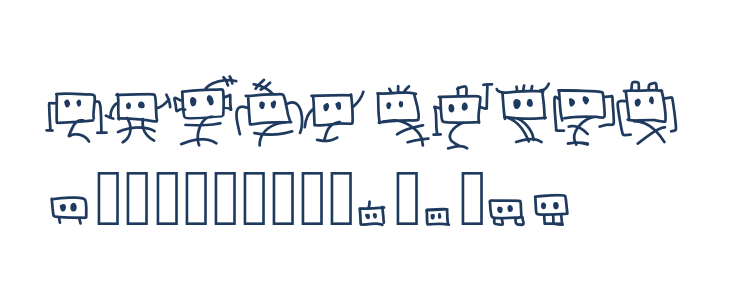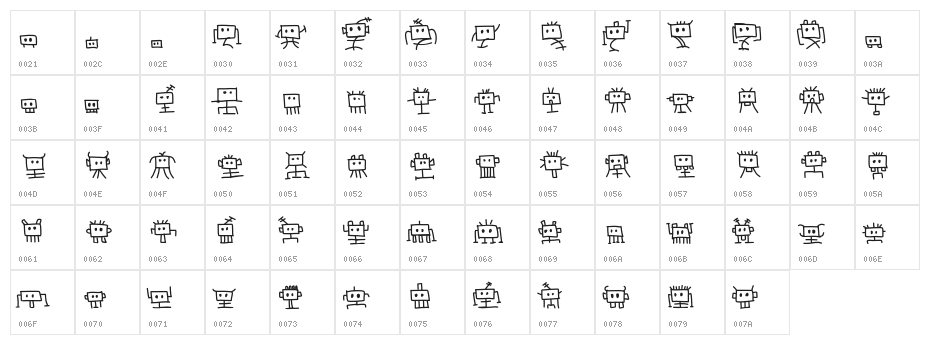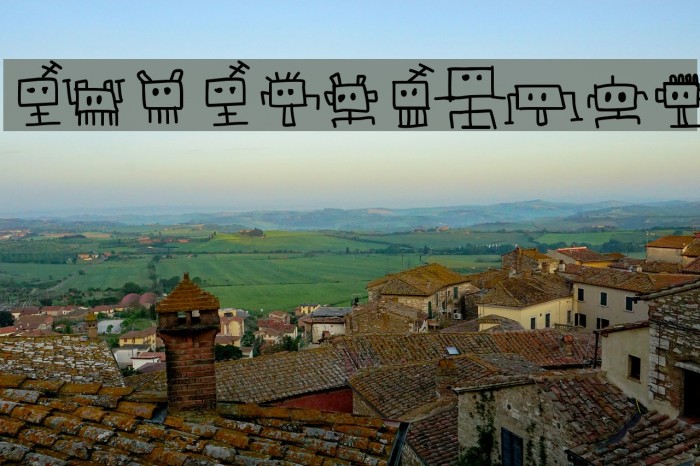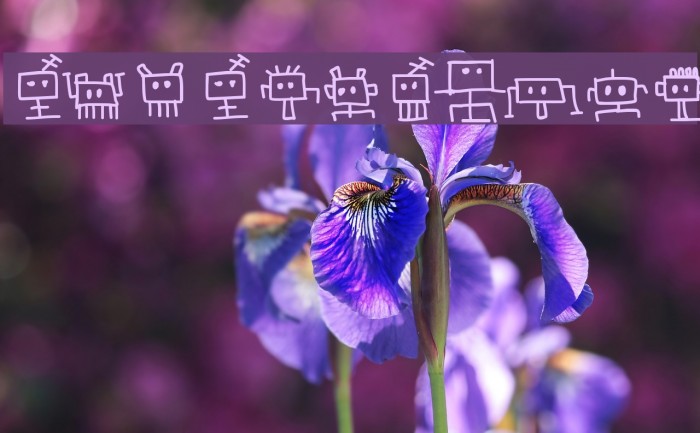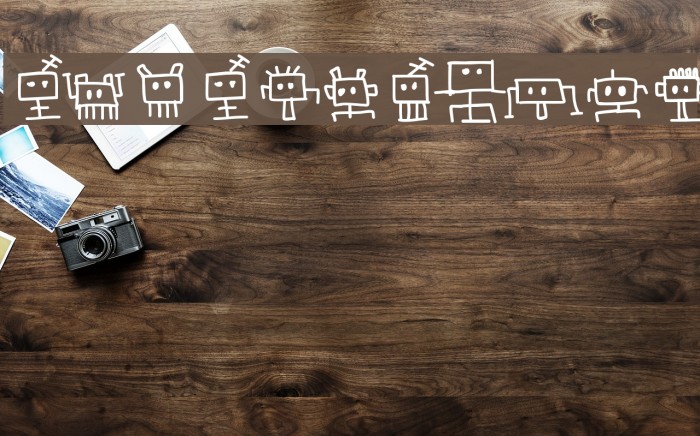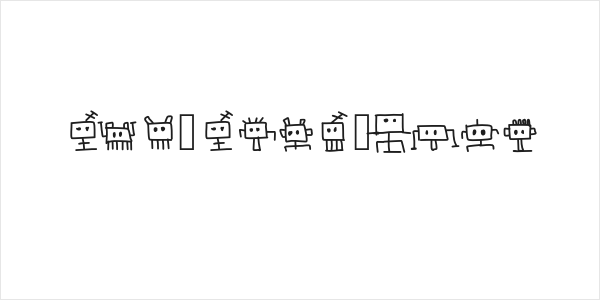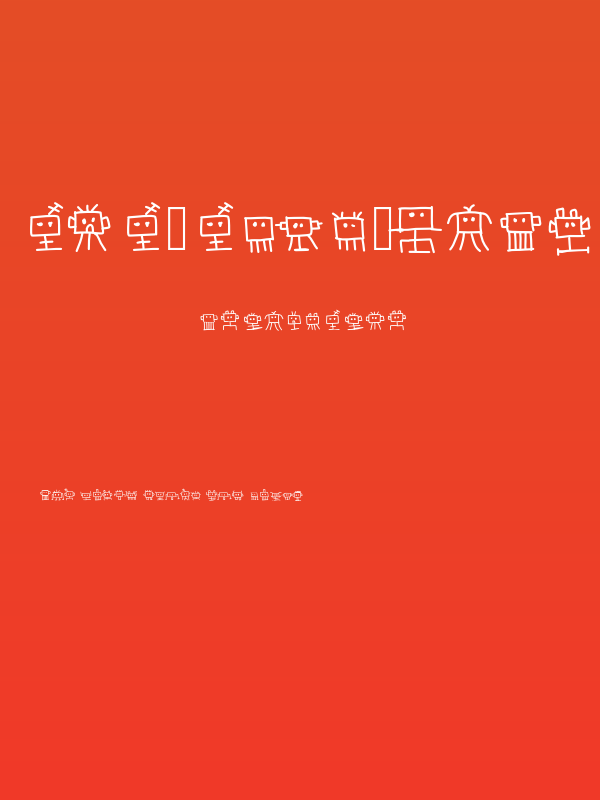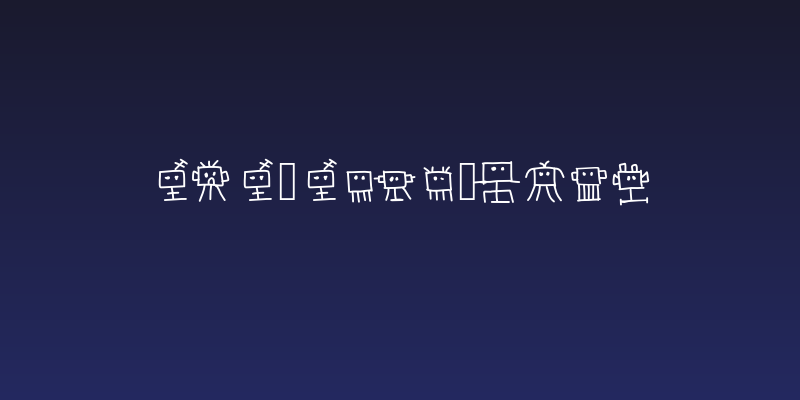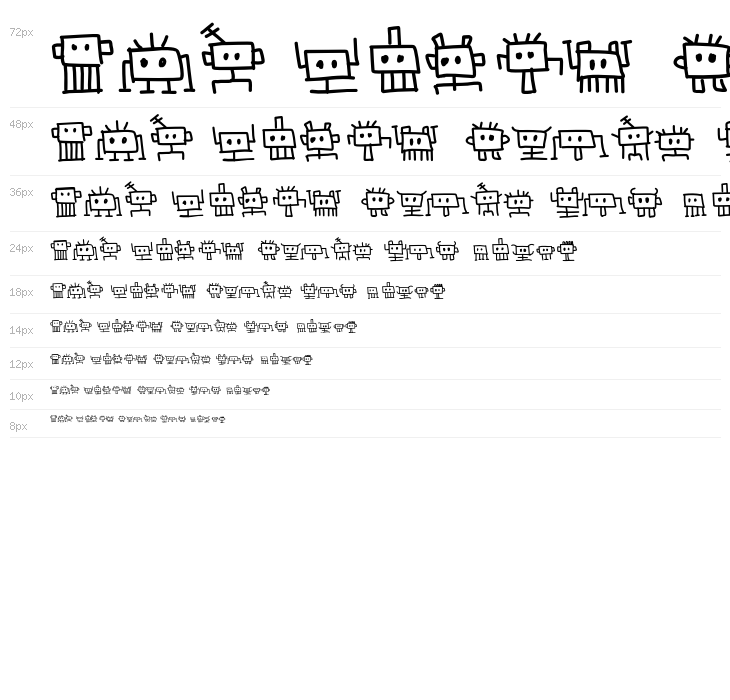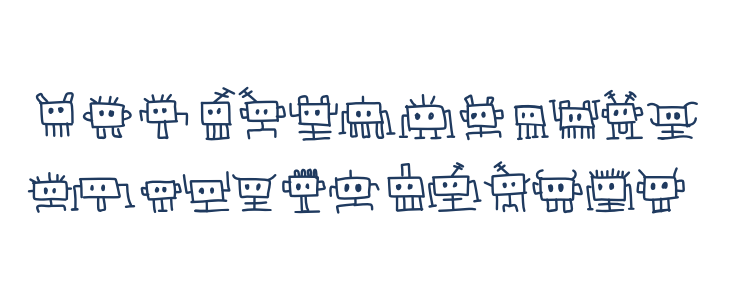
Aka-Acid-Bots Font
Aka-Acid-Bots Description
This font features a quirky and playful design, with each character resembling a small robot or creature. The characters have a hand-drawn appearance, with irregular lines and unique, whimsical details that give them a lively personality. The font is highly decorative, making it ideal for projects that require a fun and engaging visual element. Each letter and symbol is distinct, with variations in the 'head' and 'body' shapes, adding to the font's charm and individuality. The overall style is reminiscent of doodles or sketches, making it suitable for creative and informal applications.
Use CaseLogos, Posters, Creative projects
Proposed ProjectsIdeal for children's books, comic strips, playful branding, and creative posters.